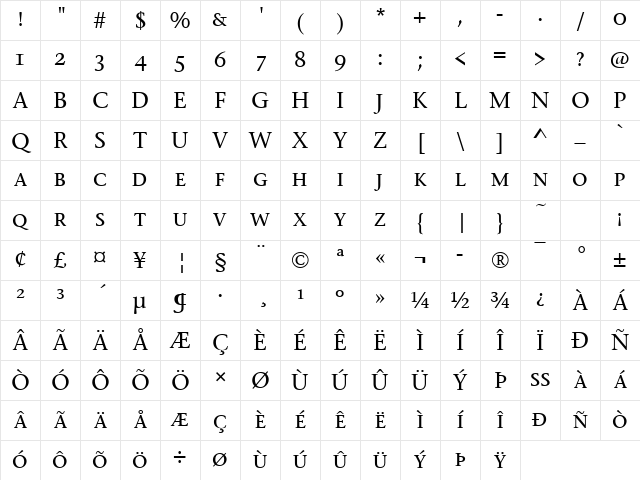
StoneSerSCItcTMed Regular
Design Context for StoneSerSCItcTMed
StoneSerSCItcTMed is a composed and adaptable typeface that performs quietly and consistently across a wide range of design contexts.
Pro Tip: Use StoneSerSCItcTMed in both headline and body roles to test its range before committing to a single application.